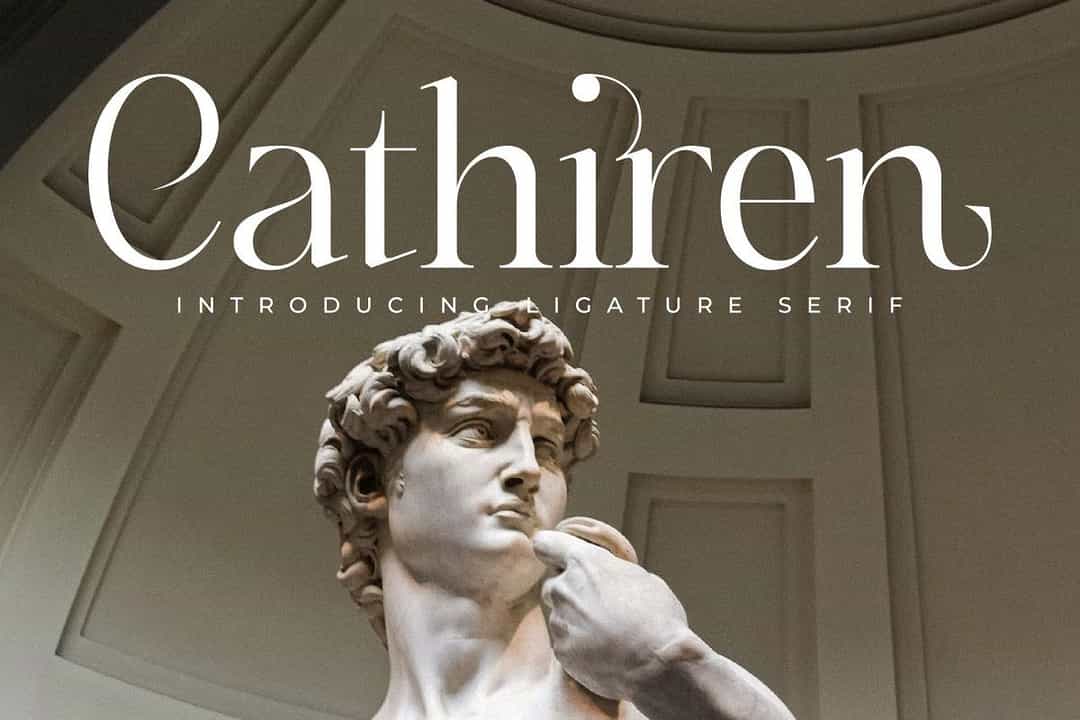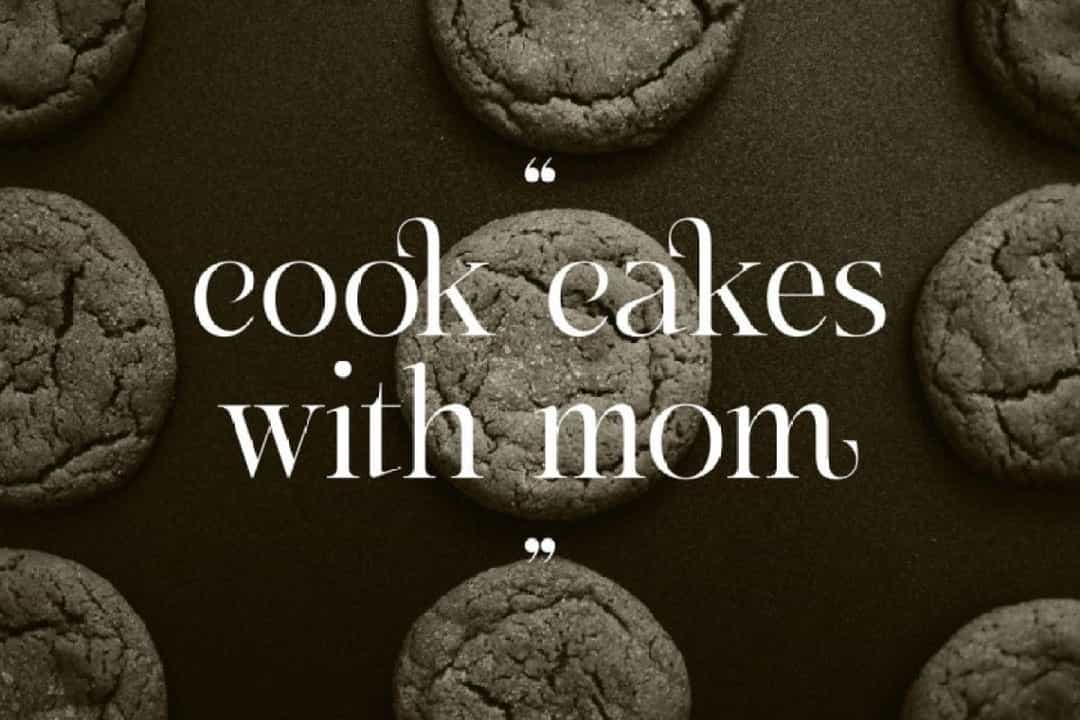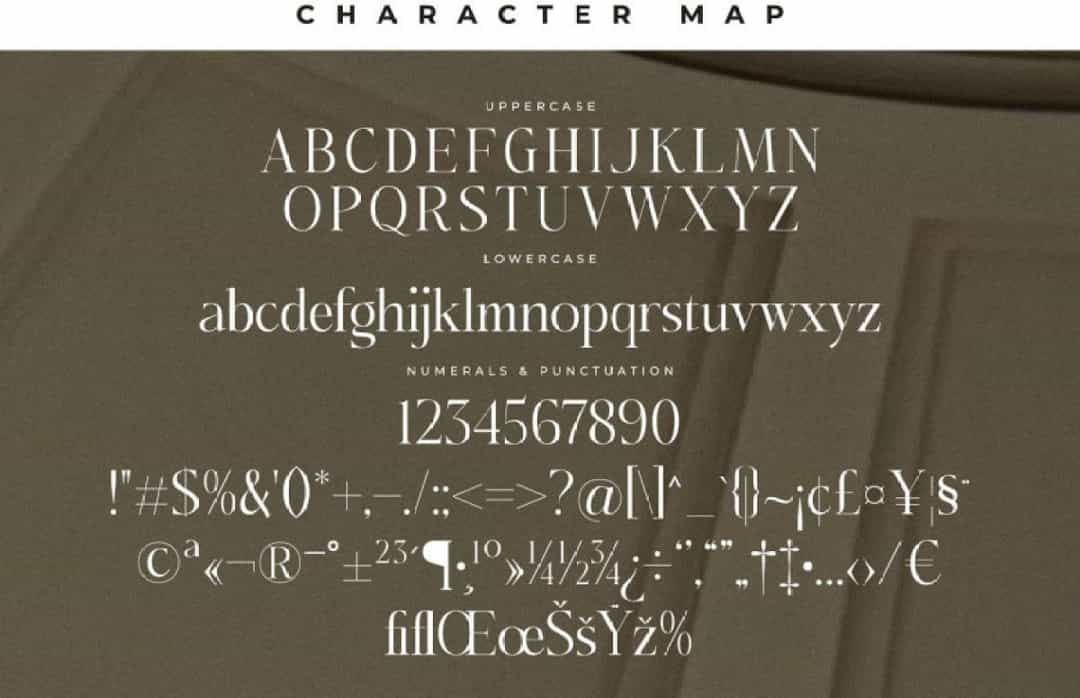
Cathiren, a classic and contemporary serif typeface with its distinctive style and modern appearance. Cathiren makes for an elegant logo design, book or film name design, fashion brand clothing design, magazines lettering or quote use among others.